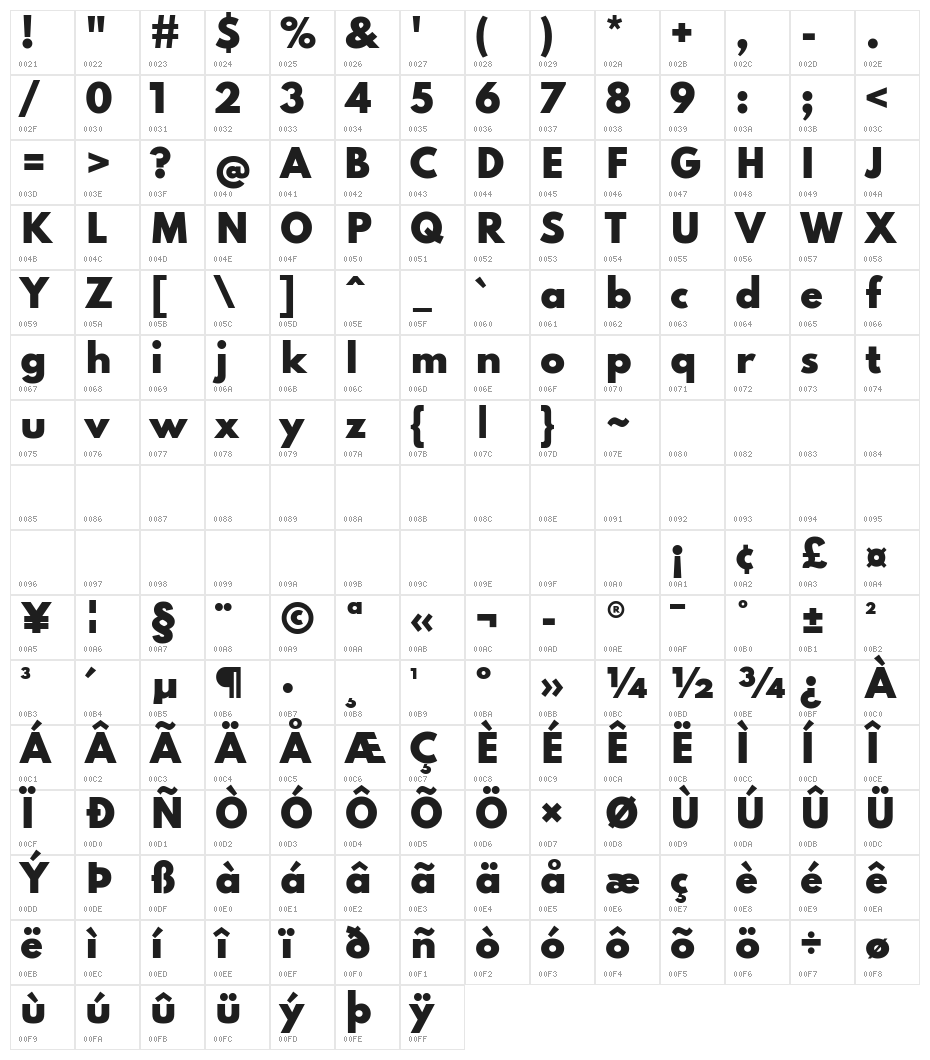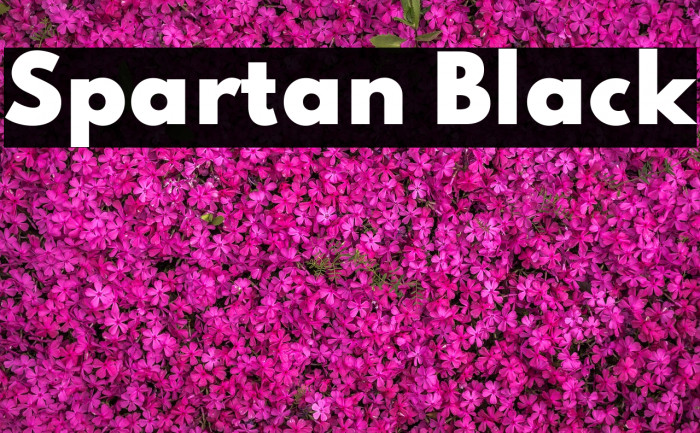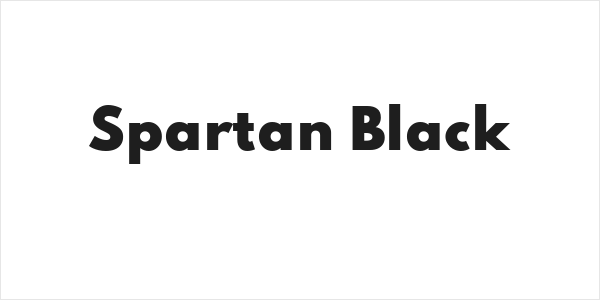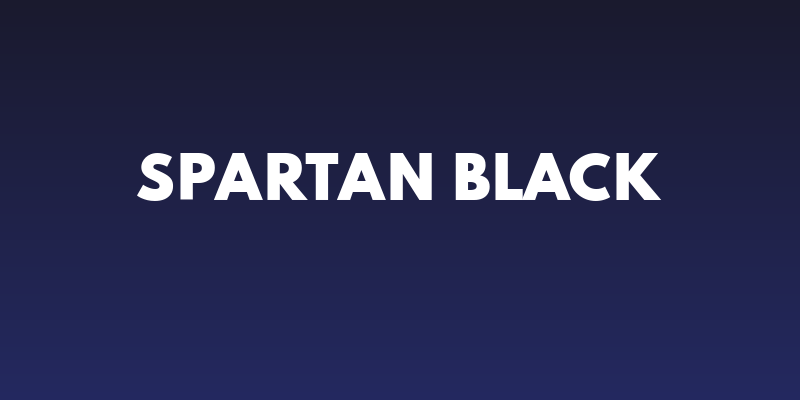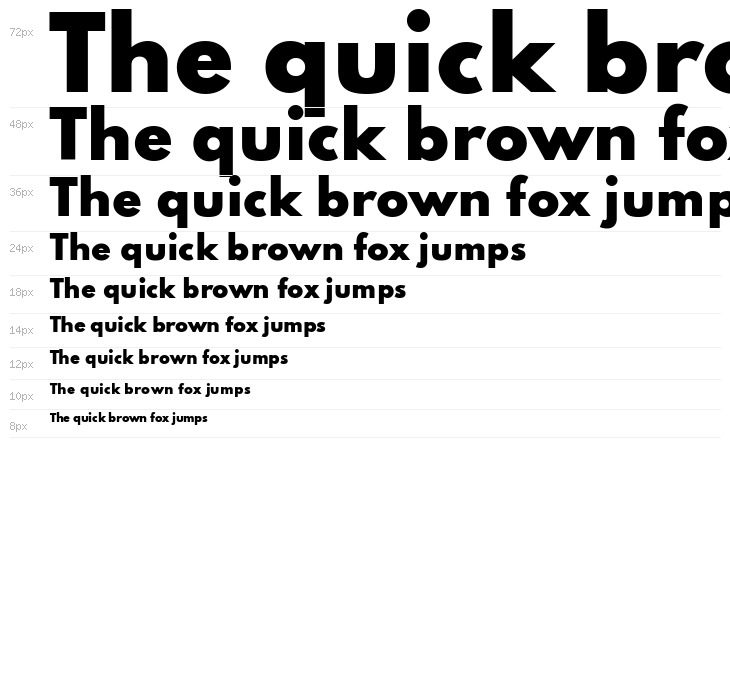
Spartan Black Font
Spartan Black Description
This typeface exhibits a bold and commanding presence with its thick, uniform strokes and geometric structure. The characters are well-defined, with a strong emphasis on horizontal and vertical lines, creating a sense of stability and strength. The uppercase letters are particularly striking, with their solid, block-like appearance, while the lowercase letters maintain a consistent weight and form. The numerals are equally robust, ensuring clarity and readability. Special characters are designed to match the overall boldness, making them suitable for various applications. This font's simplicity and strength make it versatile for both digital and print media.